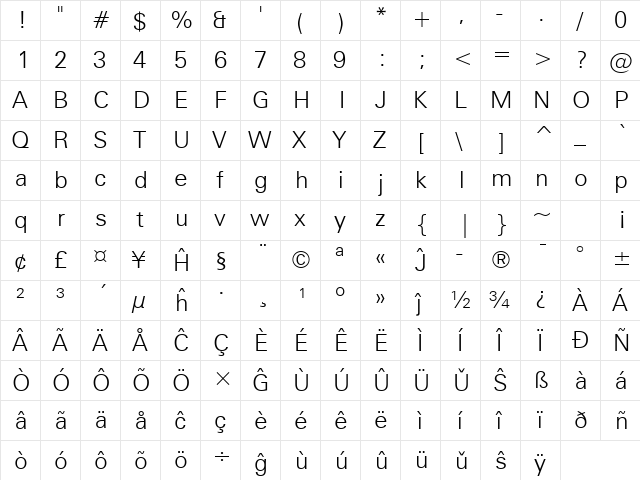
Zurich Eo Light
Design Context for Zurich Eo Typeface
Zurich Eo takes a measured approach to typography — its balanced proportions and neutral character make it a reliable workhorse for both digital and print work. Its slender proportions lend an understated elegance to any composition.